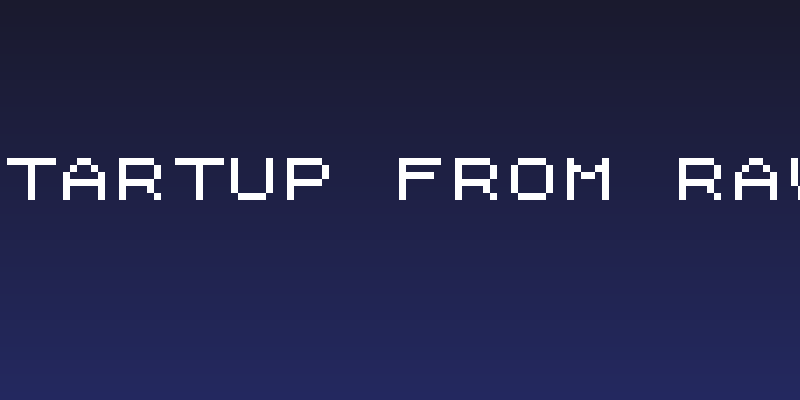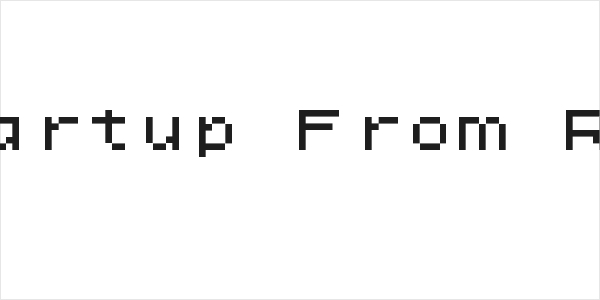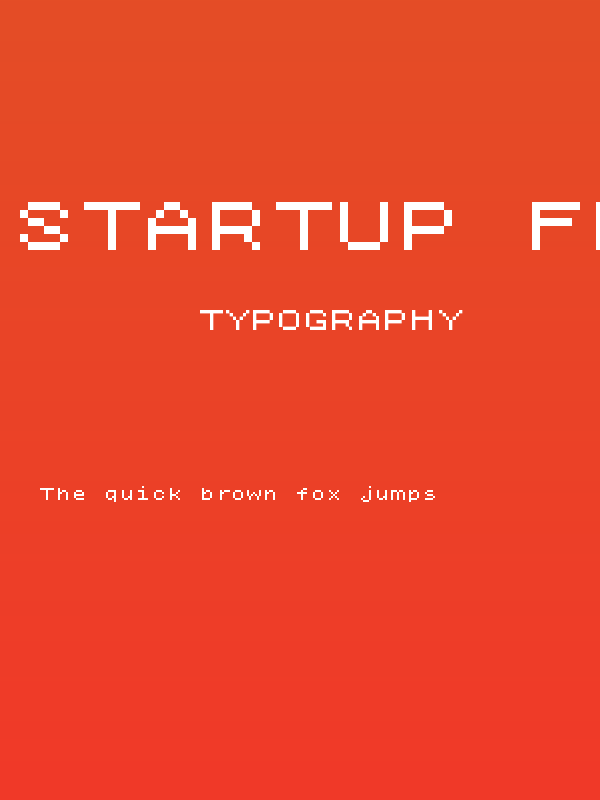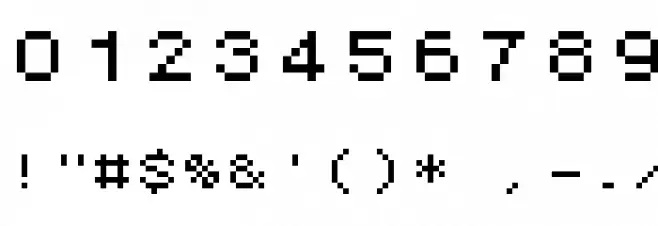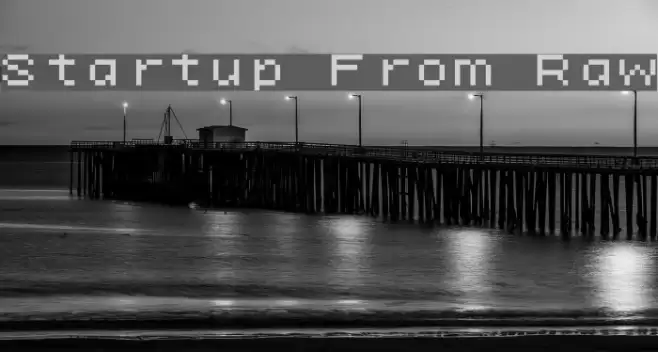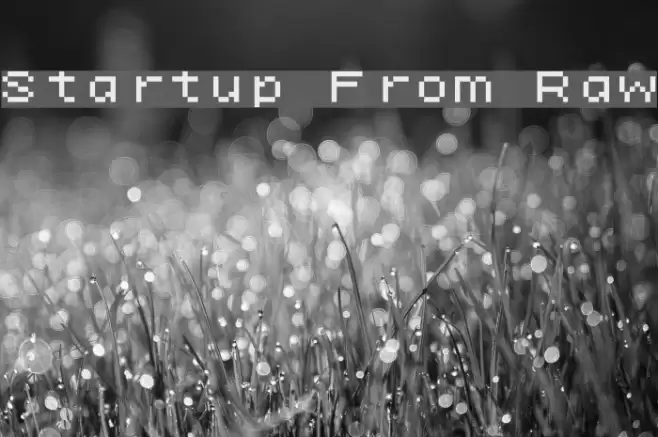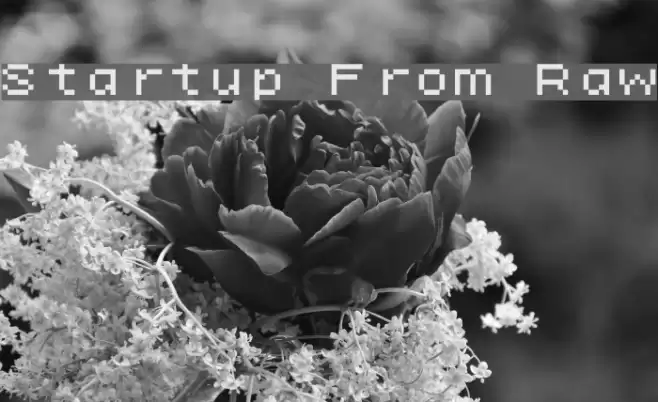
Startup From Raw Font
This font features a pixelated, blocky design reminiscent of early digital displays and retro video games. Each character is composed of a grid-like structure, giving it a distinctly digital and geometric appearance. The uppercase and lowercase letters maintain a consistent height, with the lowercase being slightly more compact. Numbers and special characters follow the same pixelated style, ensuring uniformity across the set. The font's simplicity and clarity make it easily readable, even at smaller sizes, while its unique style adds a nostalgic touch to any design.
| Overall Style | Retro, Digital |
| Use Case | Logos, Headlines, Digital displays |
| Proposed Projects | Ideal for retro video game designs, digital-themed projects, tech branding, and any creative work that seeks a nostalgic or digital aesthetic. |